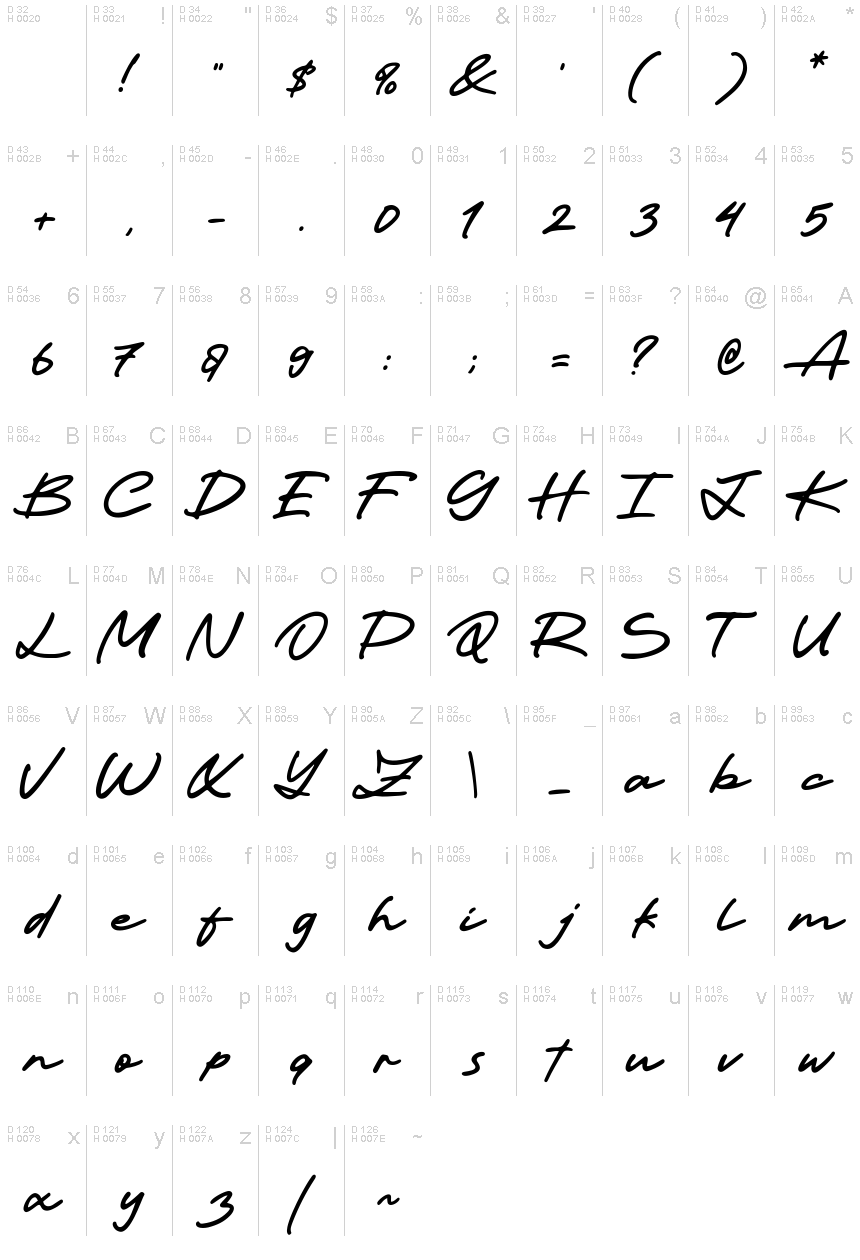
Kingshare
Kingshare, a captivating handwritten font crafted by Khurasan, exudes a dynamic and expressive charm. This versatile typeface boasts a fluid, organic script that effortlessly captures the essence of handcrafted typography. Each letter is imbued with a distinctive personality, blending elegance and playfulness to create a truly mesmerizing visual experience.
The Kingshare font's unique character lends itself seamlessly to a wide array of design applications. Its expressive nature makes it an ideal choice for branding, marketing materials, editorial layouts, and even personal stationery. The font's adaptability allows designers to infuse projects with a touch of artisanal elegance, elevating the overall aesthetic and conveying a sense of warmth and authenticity.
Kingshare by Khurasan